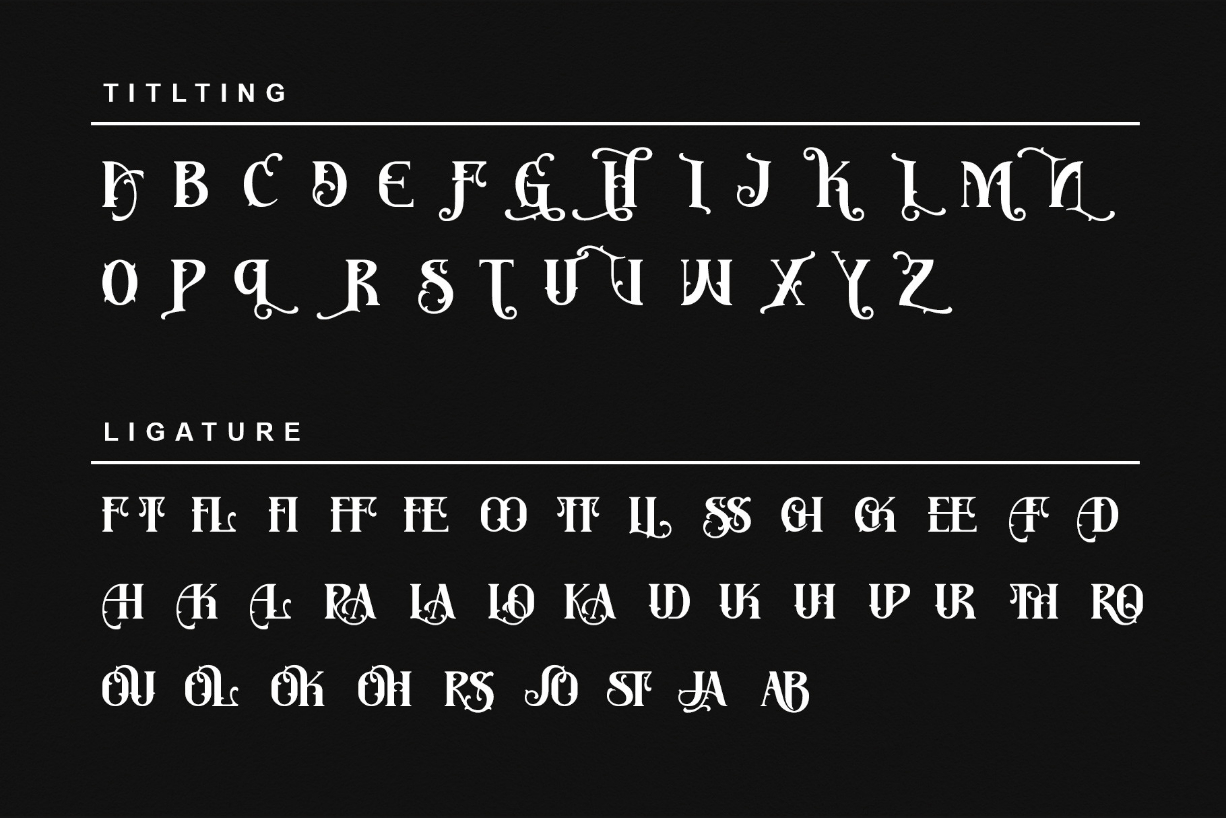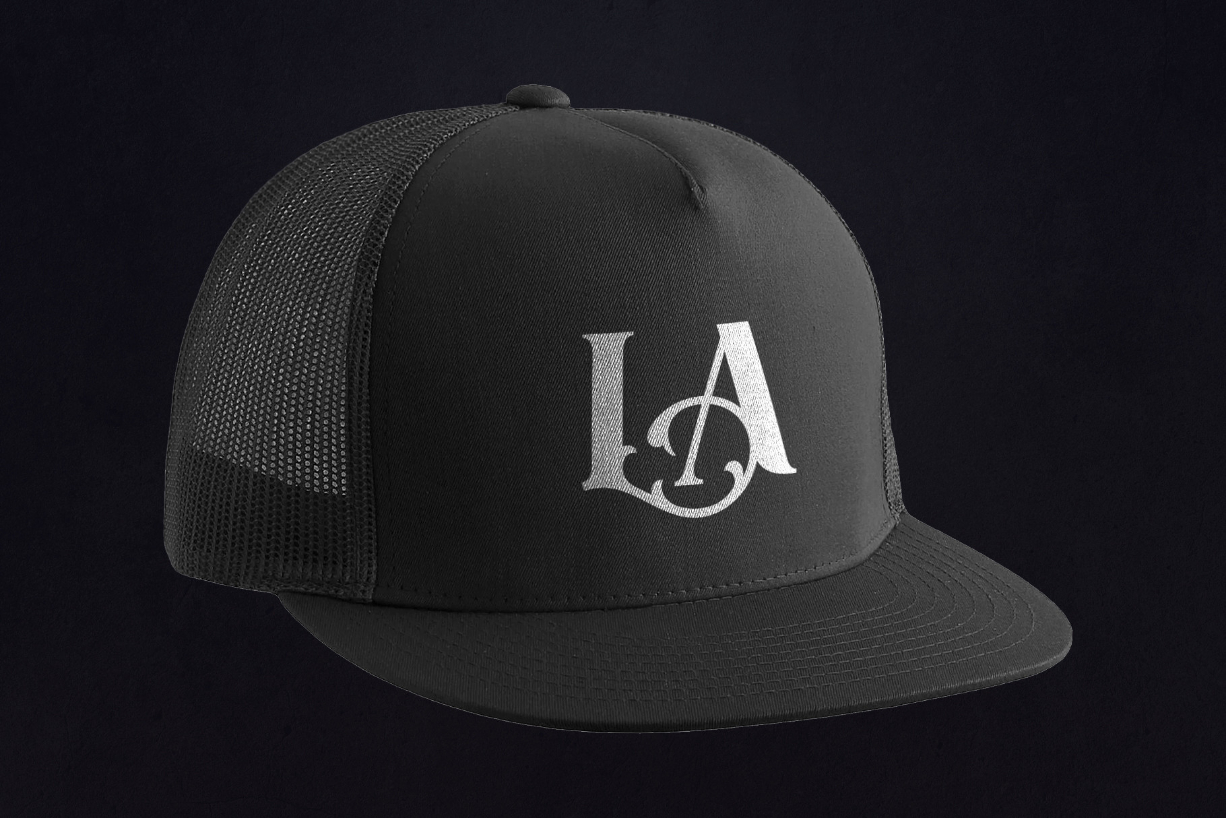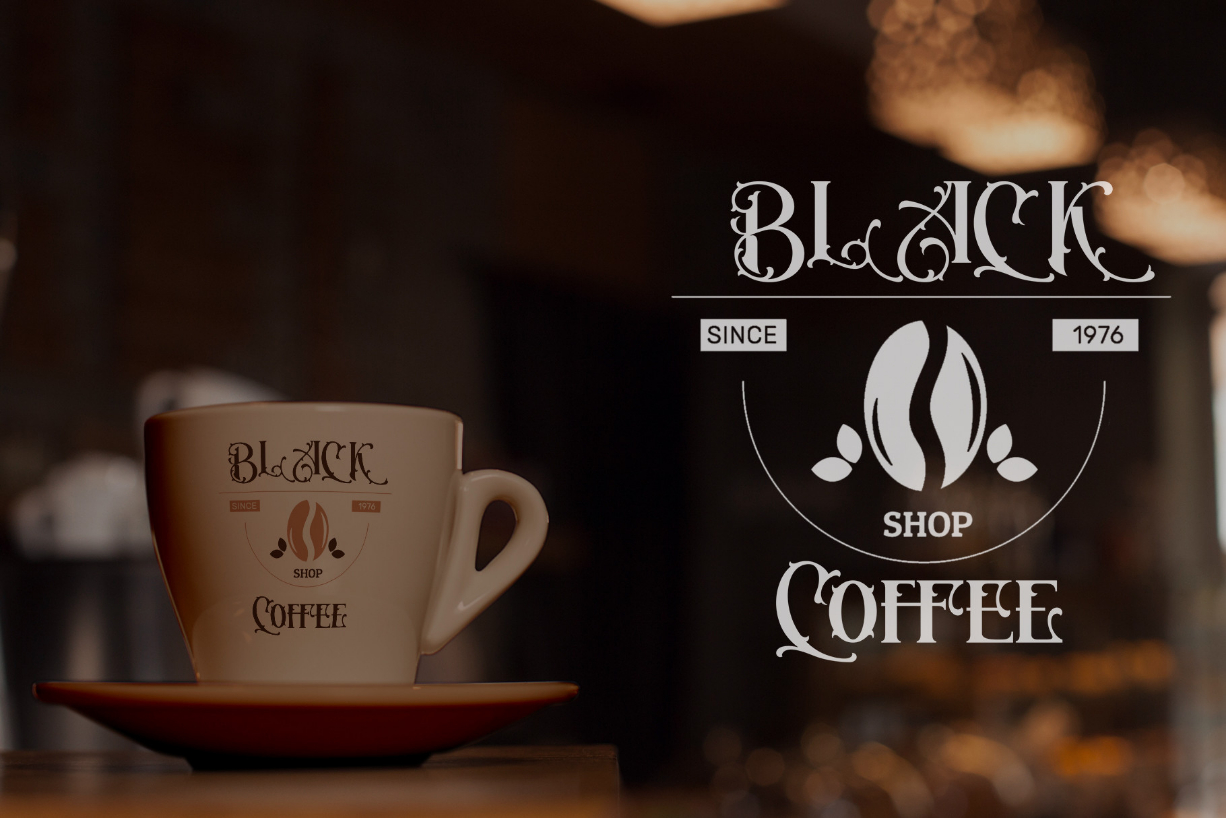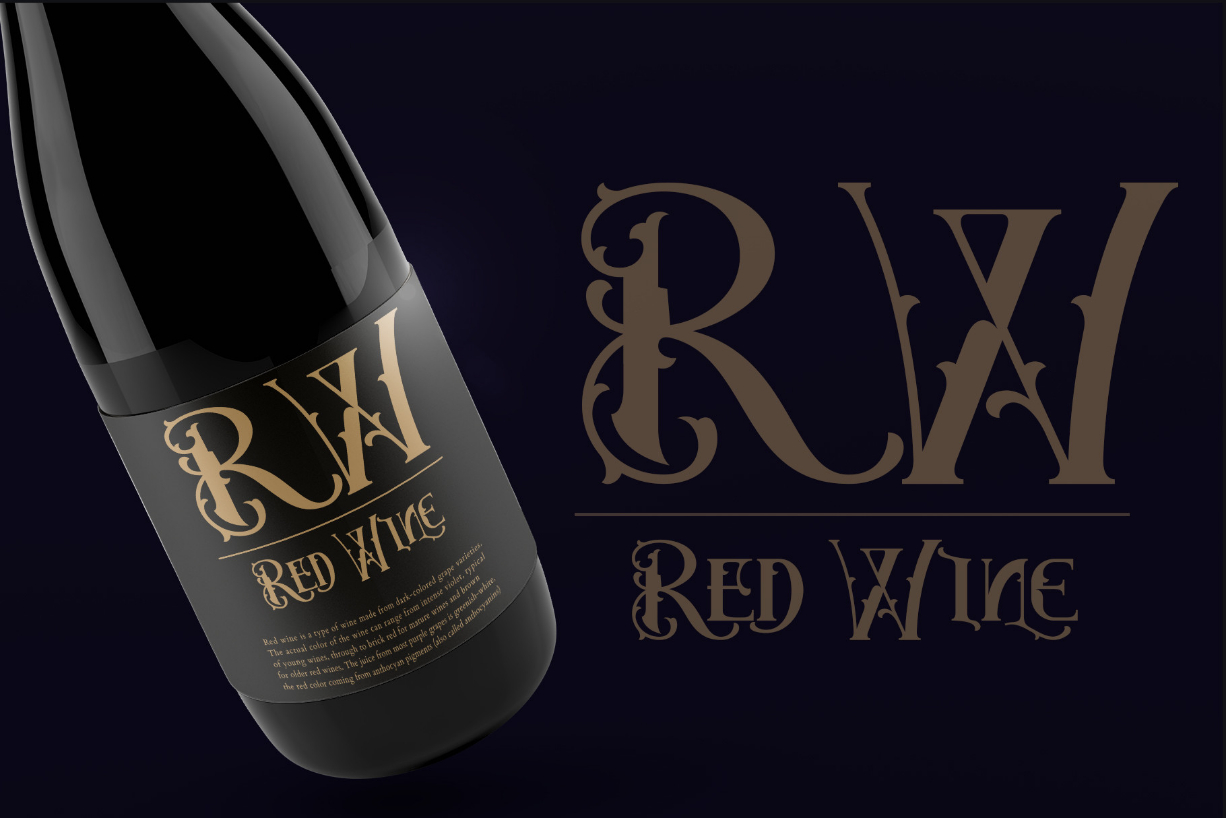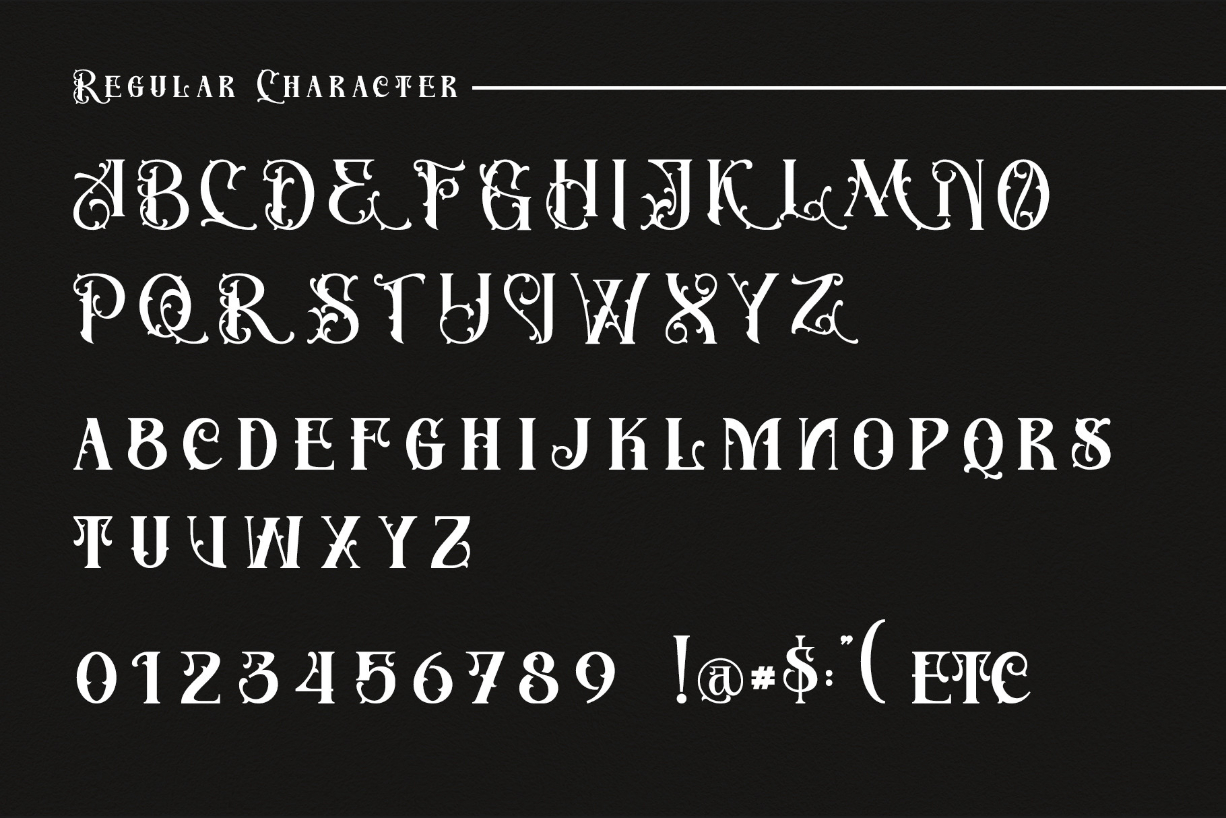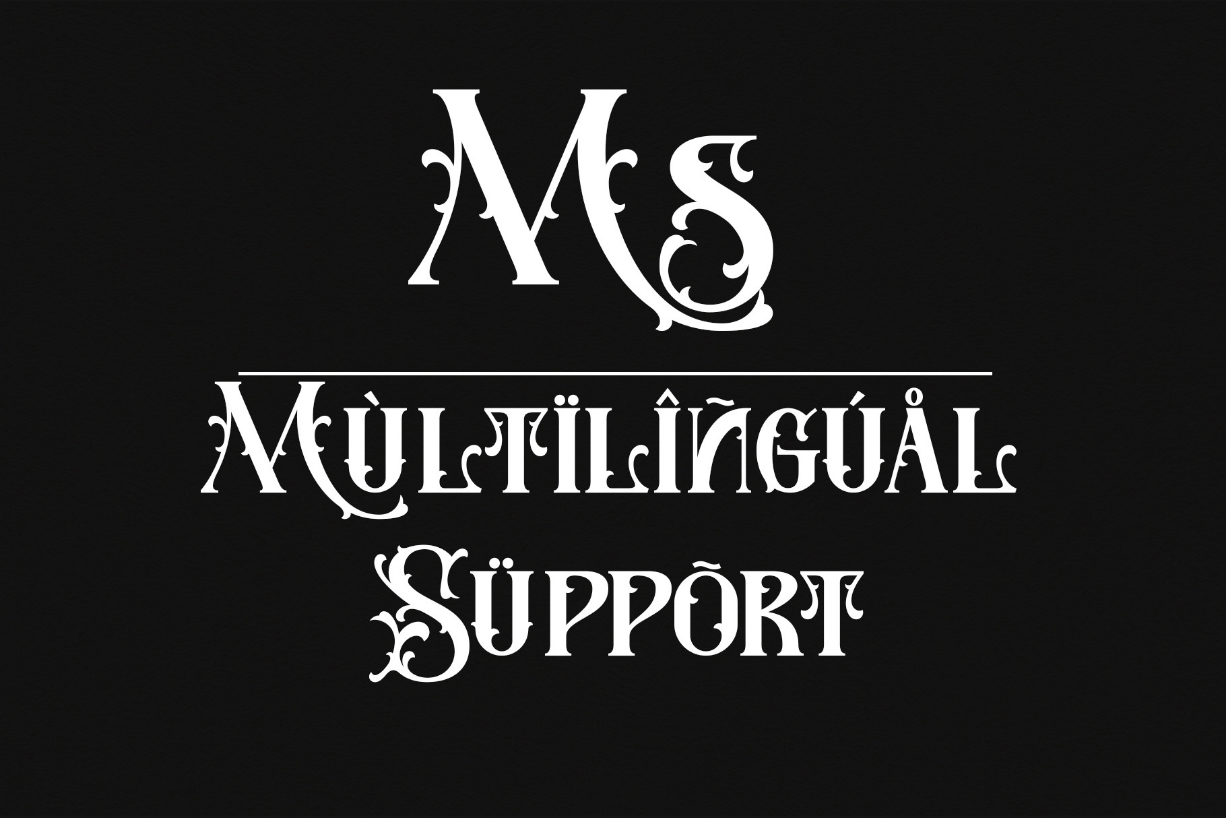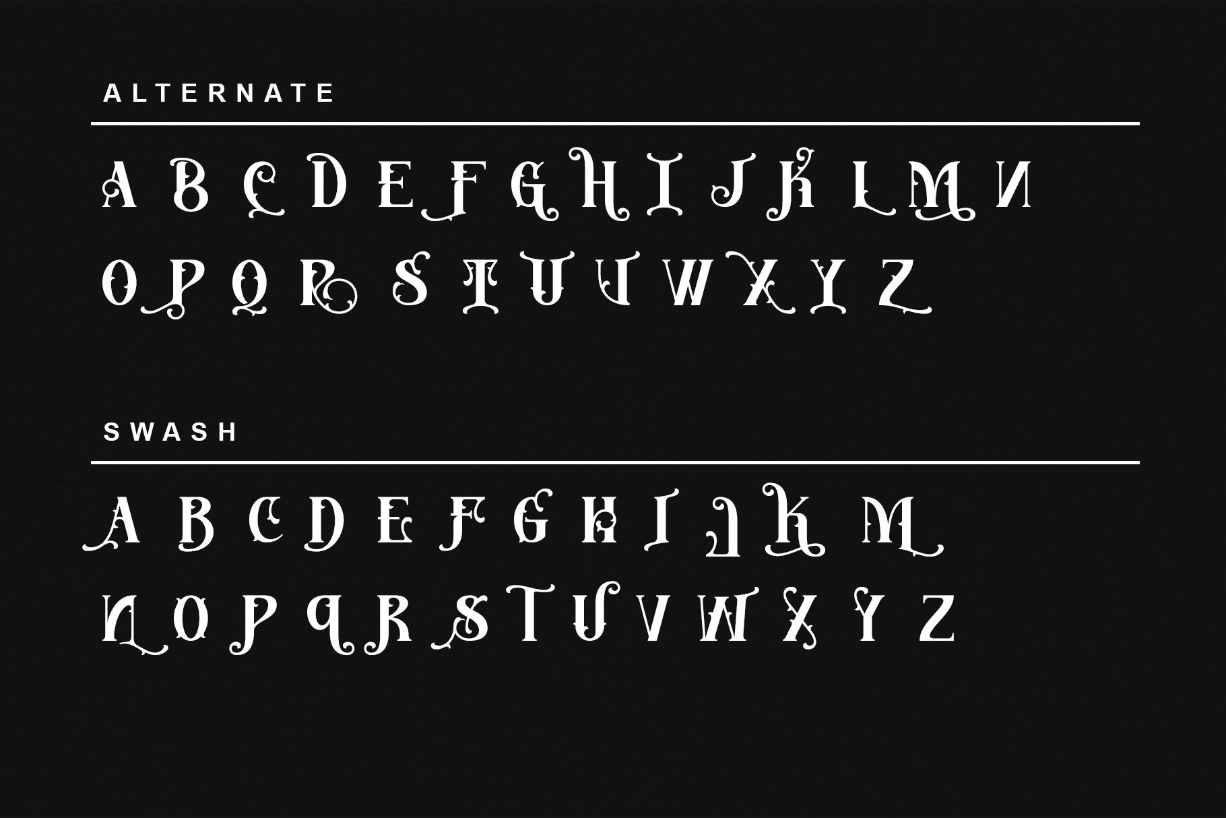
Serath Font
About Serath Font
Step into a world of bold sophistication with Serath, a remarkable blackletter font that exudes power and elegance.
Whether you’re working on product packaging, branding, or any project that requires bold and daring typography, Serath will effortlessly make a statement.
Unlock its full potential with its PUA encoding, granting you easy access to a wide array of glyphs and swashes.
Embrace the confidence that comes with incorporating Serath into your projects, and prepare to be amazed by the remarkable results it delivers.